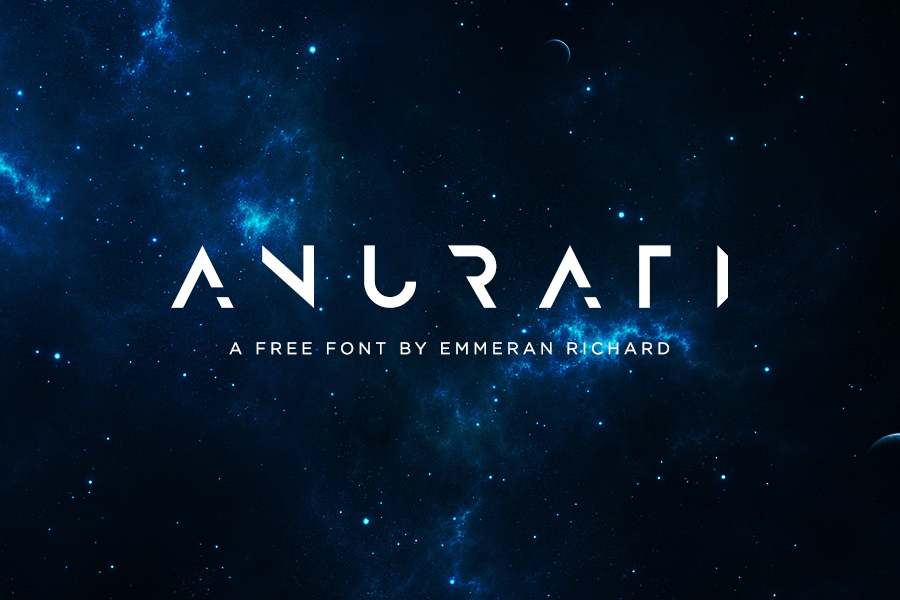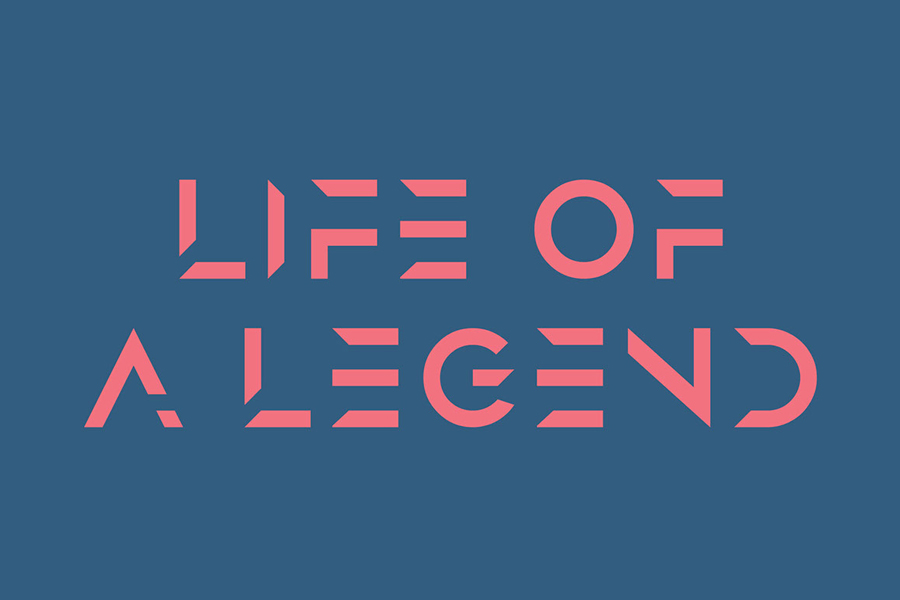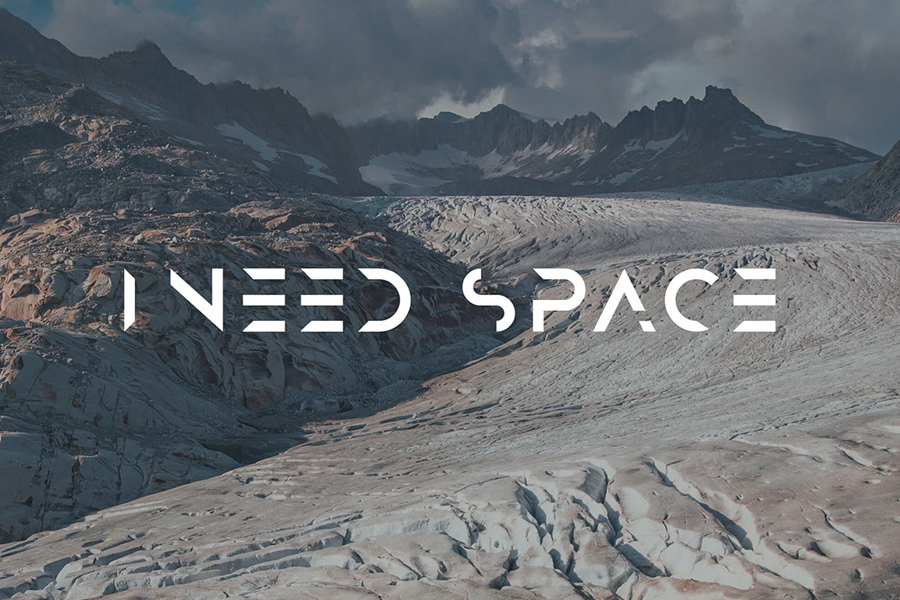
Anurati Free Font
Anurati is a new futuristic font, originally made to be free. This free font makes way for the creativity of each and every one. Available free for both personal and commercial use, you can also modify the colours of Anurati to suit your needs.